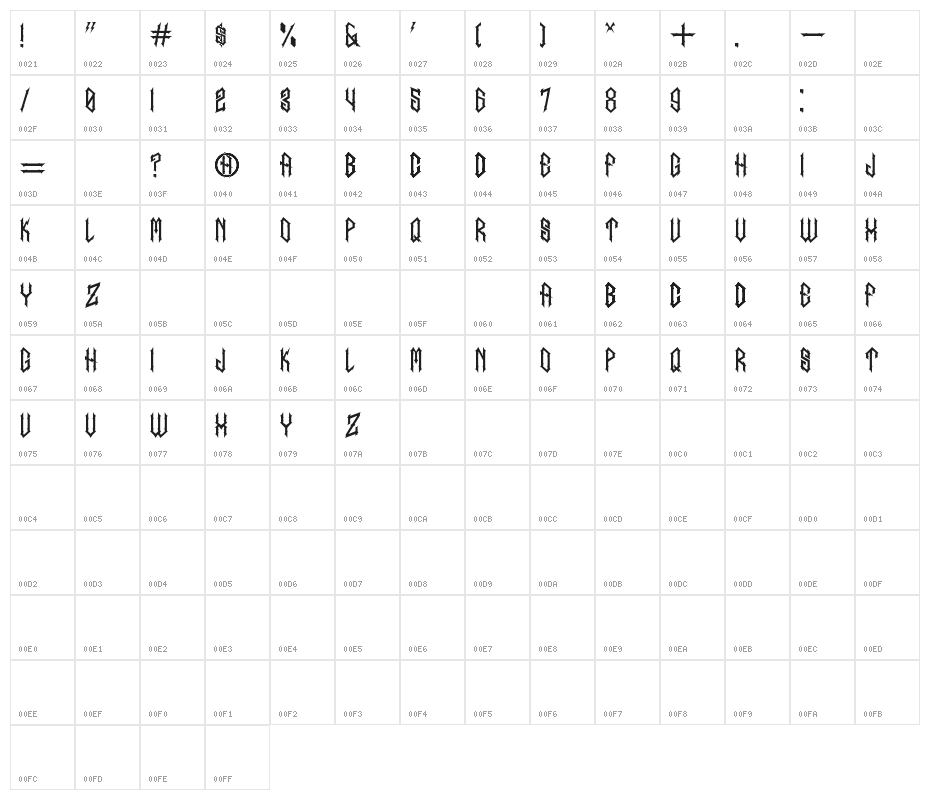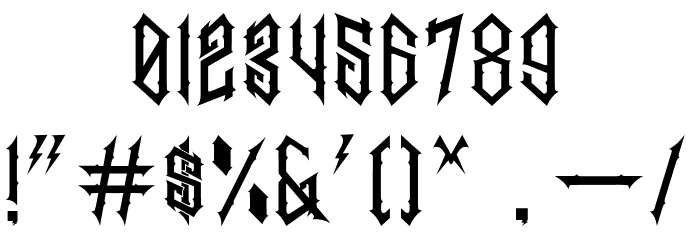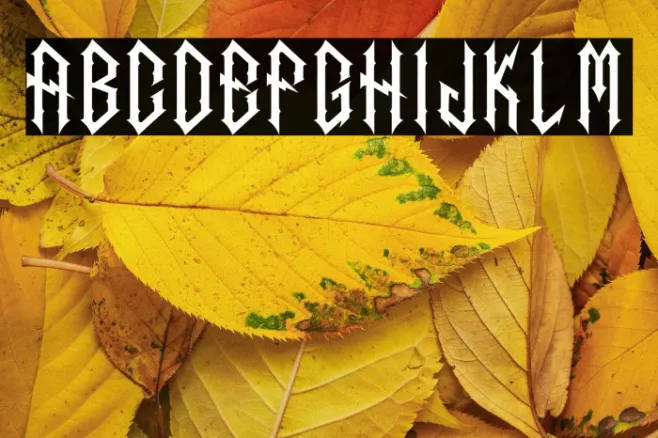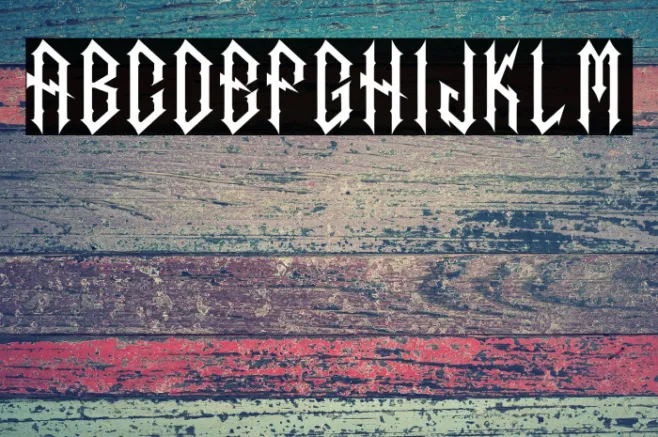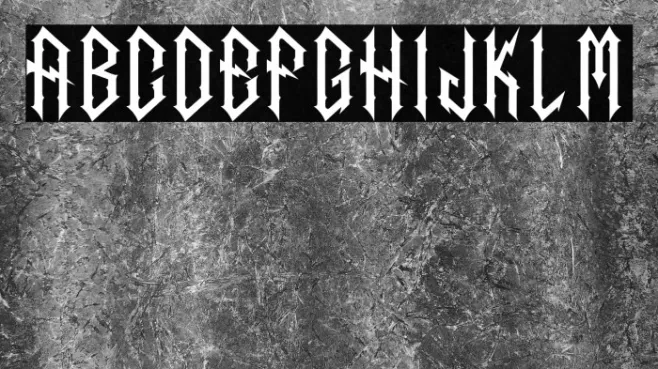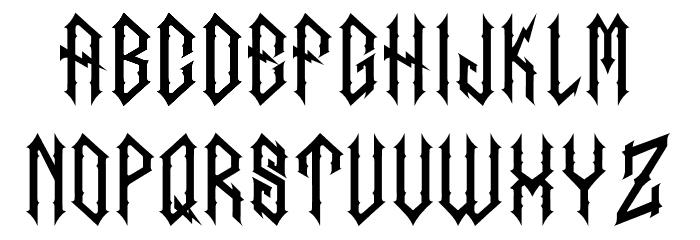
inumocca Font
inumocca Description
This font features a bold, angular design with sharp edges and a gothic influence. The characters are highly stylized, with pointed serifs and a strong vertical emphasis. The uppercase and lowercase letters maintain a consistent style, creating a cohesive and striking appearance. The numbers and special characters follow the same aesthetic, ensuring uniformity across all glyphs. This font's unique design makes it stand out, with its dramatic and edgy look suitable for impactful visual statements.
| Overall Style | Gothic, Decorative |
| Proposed Projects | Ideal for album covers, posters, branding for edgy or alternative products, and any project requiring a dramatic visual impact. |